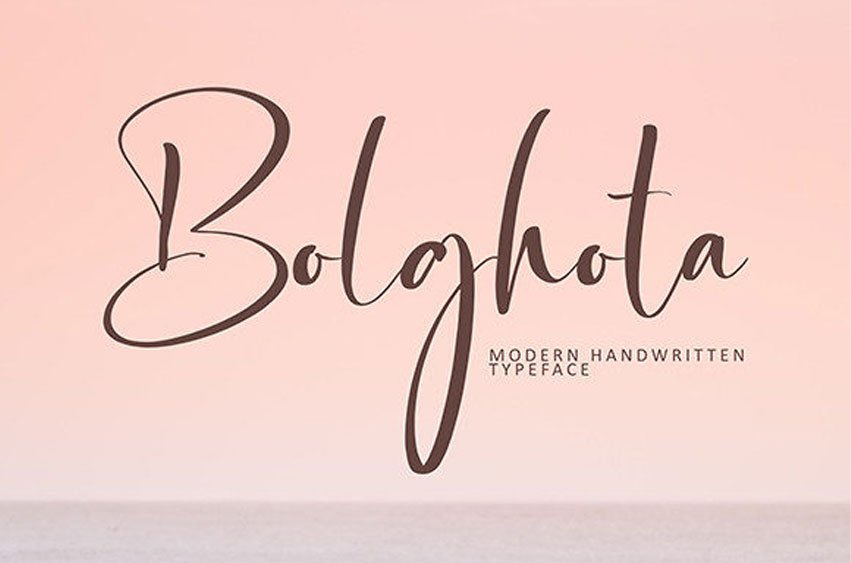
Bolghota Font
Bolghota Font is a gorgeous script font. It is great for quotes, logo, blog header, poster, banding, letter, invitation, stationery.
This font was particularly crafted for those who need a beautiful and refreshing look to their designs.